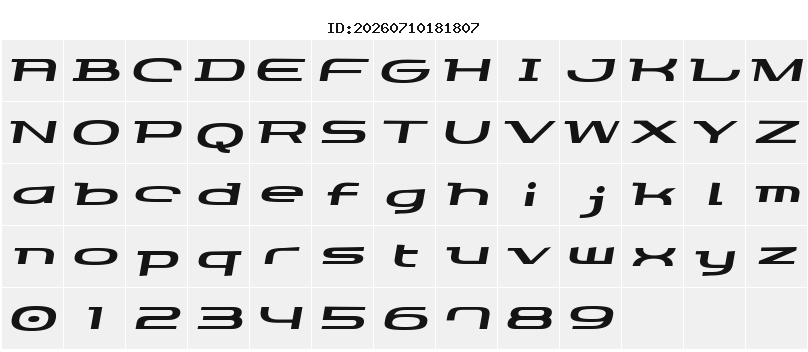
• Font Name: GauFontLoveRocket
• Full Font Name: GauFontLoveRocket
• PostScript Name: GauFontLoveRocket
About GauFontLoveRocket.ttf
GauFontLoveRocket.ttf is a modern, elegant sans-serif font designed for ultimate readability and visual harmony. Perfect for branding, headlines, web design, and print materials.